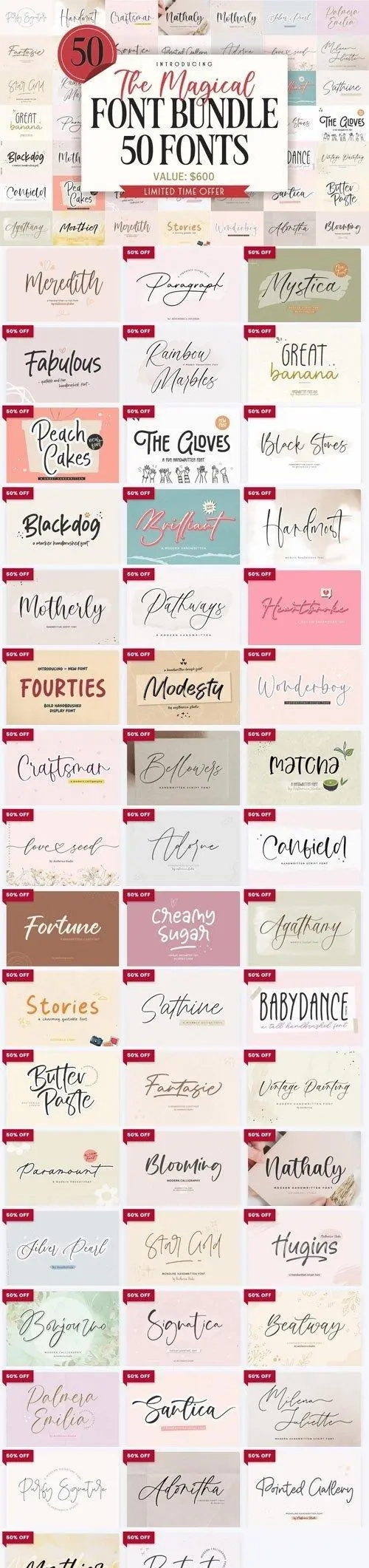
The Magical Font Bundle
Introducing The Magical Font Bundle, a captivating collection of unique fonts designed to bring a touch of whimsy and creativity to your projects. This bundle includes a variety of font styles, from elegant scripts to bold display types, perfect for any design need.
• Multiple font styles: script, serif, sans-serif, and display
• Various weights and styles for versatility
Each font in this bundle is crafted with attention to detail, ensuring that your text stands out. The collection is suitable for both print and digital applications, making it ideal for branding, logos, invitations, and more.